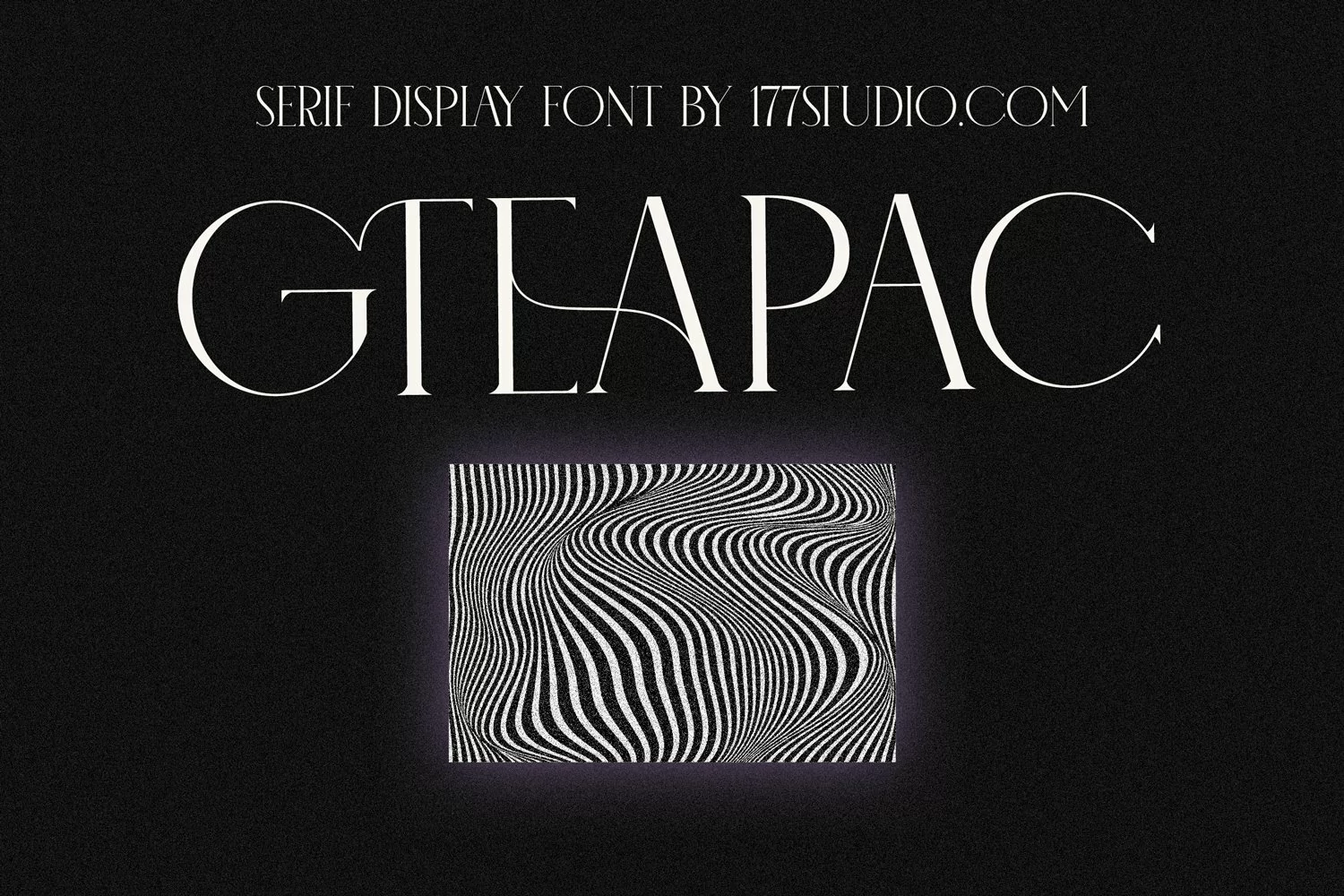
GTEAPAC FONT is a single weight black serif, modern casual typeface. A serif modern and classic typeface that has own unique style & modern look. This typeface is perfect for an elegant & luxury logo, book or movie title design, fashion brand, magazine, clothes, lettering, quotes, and so much more.
To make it look more unique, here we prepared some ligatures:AB AD AO AS CA CB CD CM CN CS CT EA EB ED EH EG EO ES ET FA FB FD FH FS FT GS GT HA HB HE HF HH KA KS KX KO LA LE LH LM LN UM UN TO TZ TT SS ST SV SW RA RO RS QS QA OO OT OX GV GW MB ME MH MK MR MS MU...